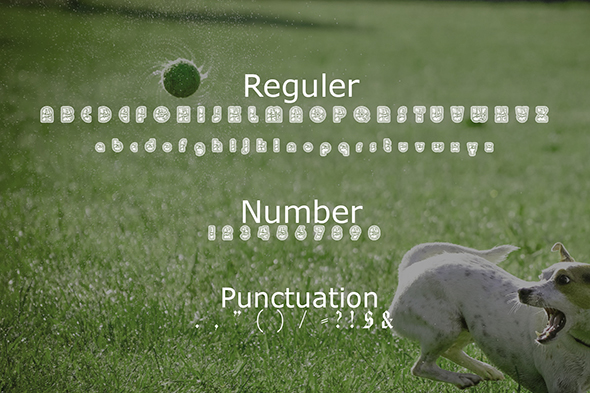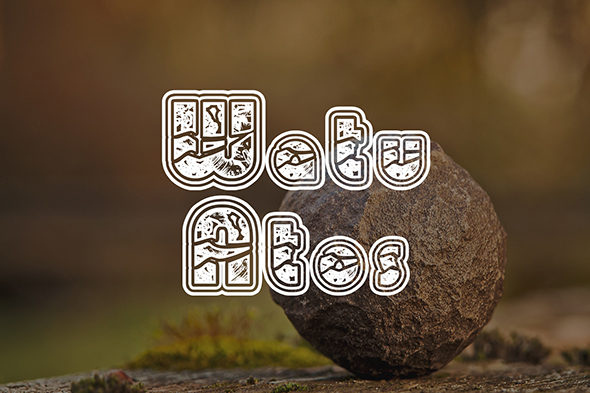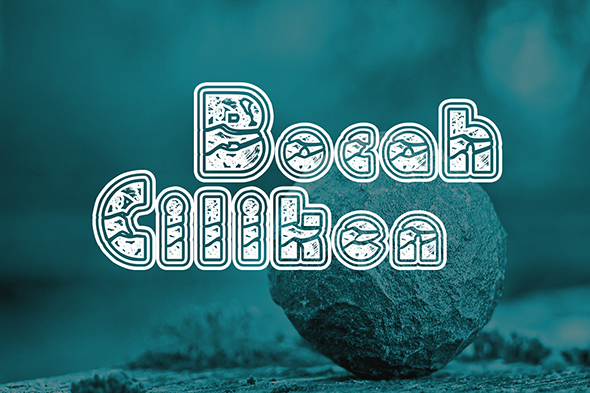
Introduction to OroBasta Font
Oro0Basta is a truly unique, beautiful typeface.
It can be used for various purposes such as: headlines, book covers, posters, invitations and much more Perfect for those who like to be creative.
Key Features of OroBasta Font
Why Choose OroBasta Font?
OroBasta Font offers exceptional quality and versatility, making it a valuable addition to your design toolkit. Whether you’re creating for personal projects or commercial use, OroBasta Font delivers professional results.